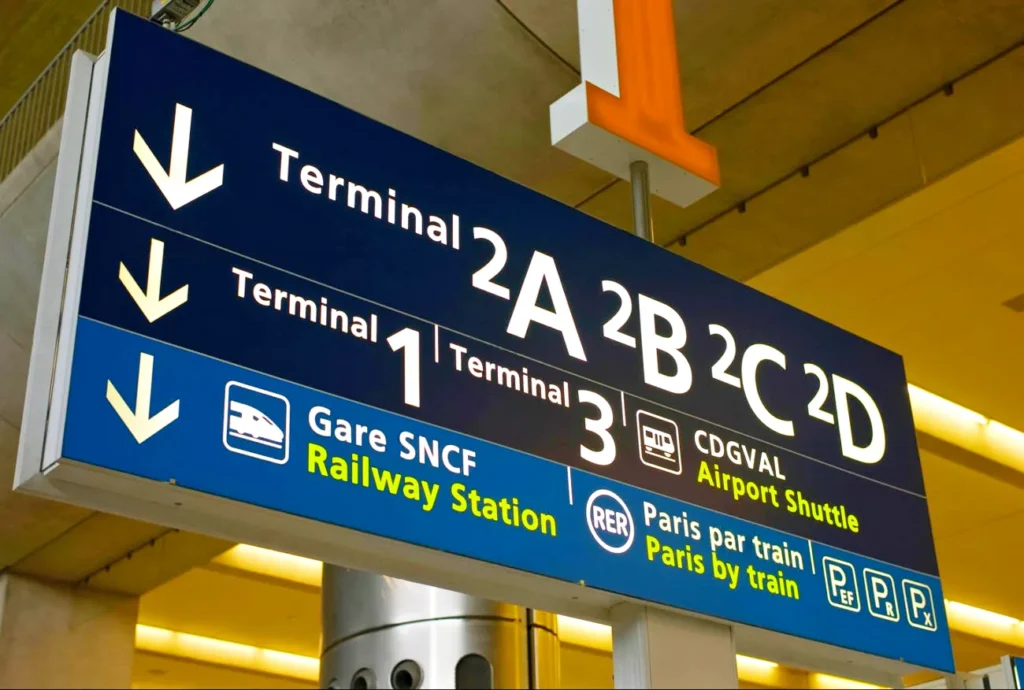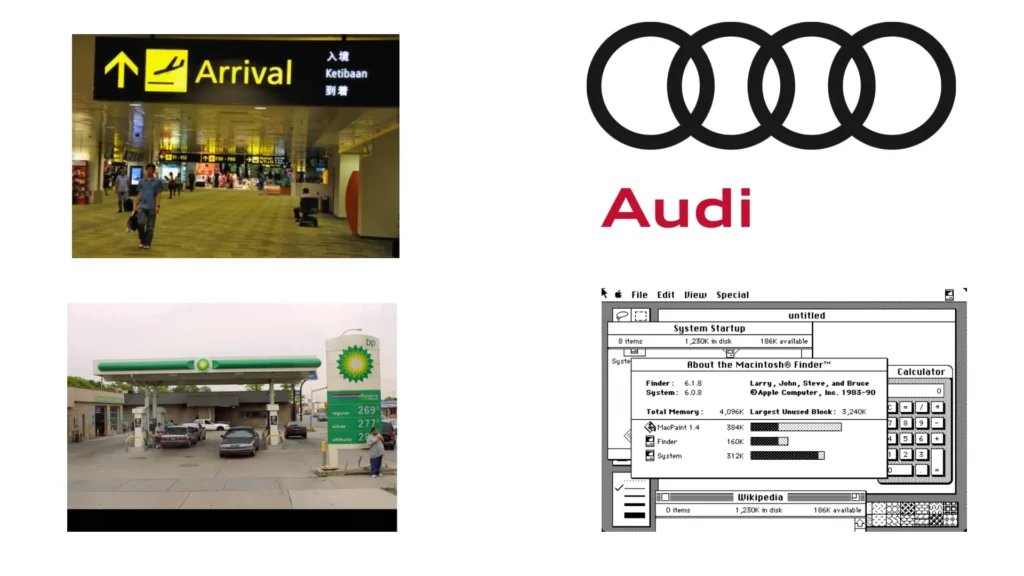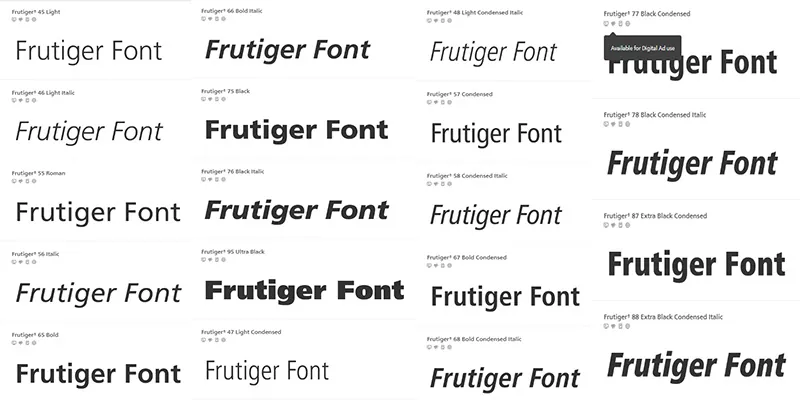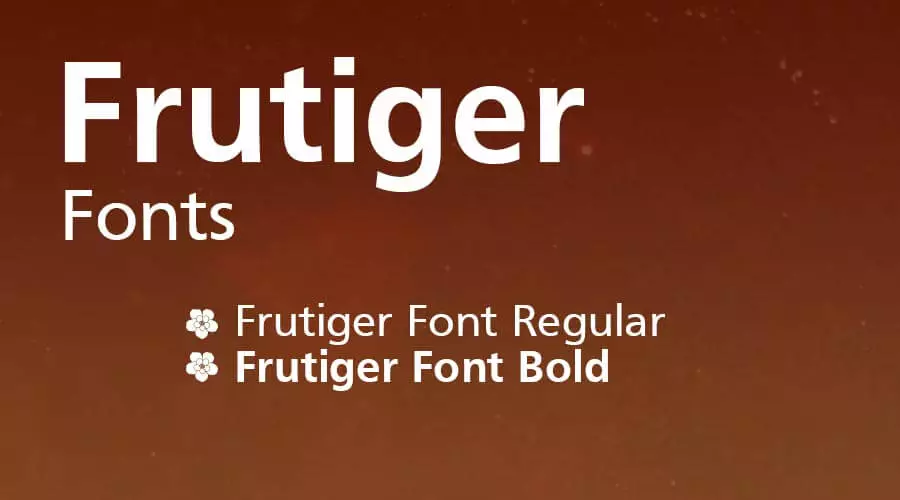
Frutiger Font is a humanist sans-serif typeface designed by the Swiss type designer Adrian Frutiger in 1976. It is one of the most influential and widely used fonts in modern typography, especially for signage, branding, and digital interfaces.
Frutiger Font
Frutiger Fonts family and similar-looking fonts
History & Usage
Let’s talk about a font you’ve definitely seen, even if you don’t know its name: Frutiger. It has a pretty cool story.
It all started at Paris’s Charles de Gaulle Airport. They needed a new font for their signs because the old one was just too hard for travelers to read. So, a designer was tasked with creating the perfect, crystal-clear font to help people find their way.
And boy, did he nail it. The font was so incredibly easy to read, even from far away, that it became a global hit. Soon, airports, train stations, and subways all over the world were using it.
In 1976, it was released for the public to buy and use, and it’s been updated over the years to include more languages and a fresh, modern look.
Chances are, you’ve seen this font more times than you realize:
- At the airport: It guides you in places like Frankfurt, Zurich, and Singapore Changi.
- On your car: The Audi logo uses it.
- On everyday products: Look for it on BP gas stations, DHL trucks, and Swatch watches.
- In public services: It’s used by the UK’s National Health Service (NHS) and many hospitals and universities because it’s so trustworthy and clear.
- On your screen: It was even used in early Apple computers and Microsoft software.
Font Family
- Frutiger® 45 Light
- Frutiger® 46 Light Italic
- Frutiger® 55 Roman
- Frutiger® 56 Italic
- Frutiger® 65 Bold
- Frutiger® 66 Bold Italic
- Frutiger® 75 Black
- Frutiger® 76 Black Italic
- Frutiger® 95 Ultra Black
- Frutiger® 47 Light Condensed
- Frutiger® 48 Light Condensed Italic
- Frutiger® 57 Condensed
- Frutiger® 58 Condensed Italic
- Frutiger® 67 Bold Condensed
- Frutiger® 68 Bold Condensed Italic
- Frutiger® 77 Black Condensed
- Frutiger® 78 Black Condensed Italic
- Frutiger® 87 Extra Black Condensed
- Frutiger® 88 Extra Black Condensed Italic
Fonts Similar to Frutiger
While the Frutiger font stands on its own, you’ll find a selection of typefaces that share the same commitment to legibility and versatility:
- Metropolis Font
- Graphik Font
- Inter Font
- SF Pro Font
- Coolvetica Font
- FreeSet Regular Font
The Frutiger font continues to captivate designers and readers alike with its timeless appeal and exceptional legibility. It is one of the most popular and respected fonts in the world and has been used for a wide range of purposes and contexts. Whether for signage, print, or digital media, this font offers a harmonious blend of aesthetics and functionality. Embrace the clarity and elegance of the Frutiger font in your next design project.